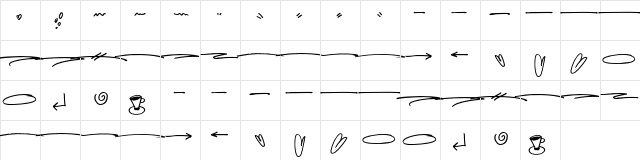
Hellobello Swash Regular
Design Context for Hellobello Swash Typeface
Hellobello Swash brings a calligraphic fluidity to the page — its connecting strokes and expressive curves give it an unmistakably human quality.
Font Pairing: Combine Hellobello Swash with a simple geometric sans for maximum contrast — the tension between flowing curves and clean structure is a classic typographic pairing.
Pro Tip: Use Hellobello Swash for short runs of text — names, titles, or taglines. Extended body copy in script faces tires the eye quickly.